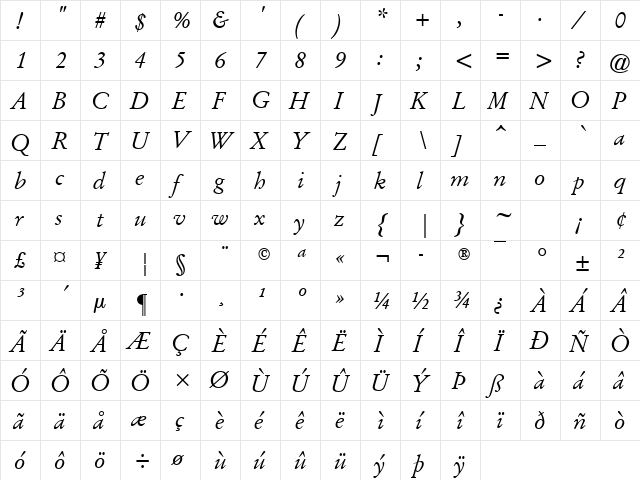
Garamond Kursiv
Design Context for Garamond Typeface
Garamond takes a measured approach to typography — its balanced proportions and neutral character make it a reliable workhorse for both digital and print work. The dynamic lean of this cut emphasises speed and emphasis in any layout.
Pro Tip: Use Garamond for emphasis, pull quotes, and subheadings where its slanted energy can add rhythm to the layout.